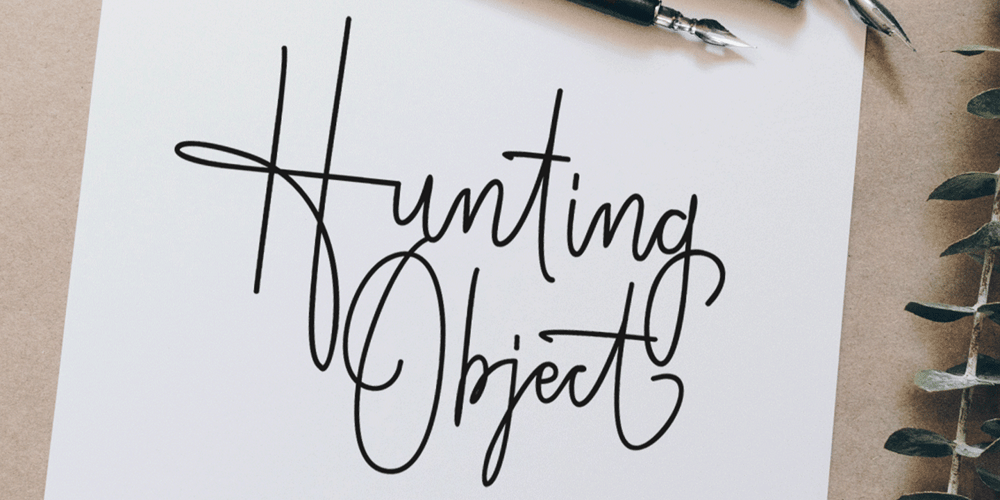
Hunting Object
Hunting Object font
Hunting Object Font Family was designed by Sai Poel and published by Groen Studio. Hunting Object contains 1 styles and family package options. Hunting Object a work that is purely handwritten, has its own characteristics with the style of monoline. this is perfect for invitations, signatures, blogs, social media, business cards, product brands.Hunting Object has Stylistic standard, Stylistic Alternate, Stylistic Sets and ligatures. and includes uppercase and lowercase letters, numbers and punctuation marks.FILE INCLUDEHunting Object (OpenType,PUA)OpenType features can be accessed by using OpenType smart programs such as Adobe Photo Shop, Adobe Illustrator, Adobe Indesign, Corel Draw and Microsoft Office.special greetings for all, all of us all smoothly in running the routin